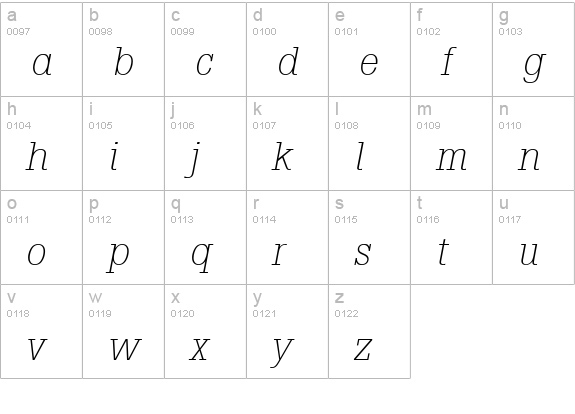
Boton Light Italic Font Details
Boton Light Italic is a refined, elegant, italic variant in the Boton typeface family \xE2\x80\x94 well suited to elegant body text, refined sub-headings, and luxury branding.
Boton Light Italic font is a sleek and elegant typeface that exudes sophistication and modernity. Its delicate italic design adds a touch of refinement to any project, making it perfect for use in branding, editorial design, and more. The clean lines and subtle curves of Boton Light Italic create a sense of grace and style that is sure to capture attention. What makes Boton Light Italic even more appealing is that it is available for free download at FontsMarket.com. This means that you can easily access this beautiful font without any cost, making it a valuable addition to your font library. Whether you are a designer looking for a stylish typeface or a business owner wanting to elevate your branding, Boton Light Italic is the perfect choice. Download it today and add a touch of sophistication to your projects.